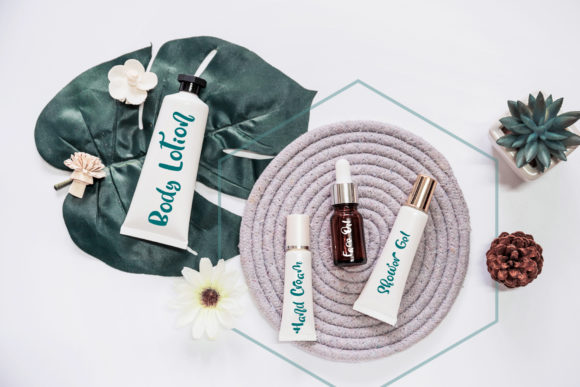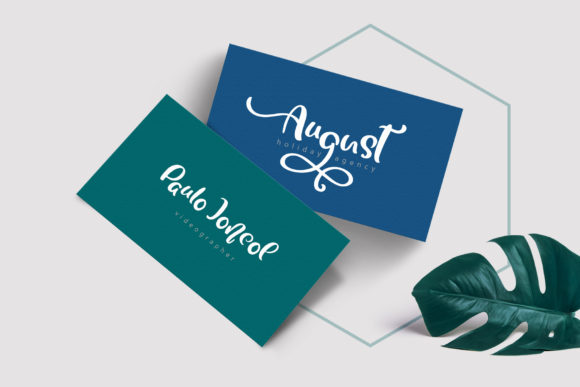
Tropical Font
db-ku.com - Script & Handwritten -- Tropical is a unique handmade calligraphic font! Updating classic calligraphy with a contemporary twist, it will put a lovely spin on any design project!